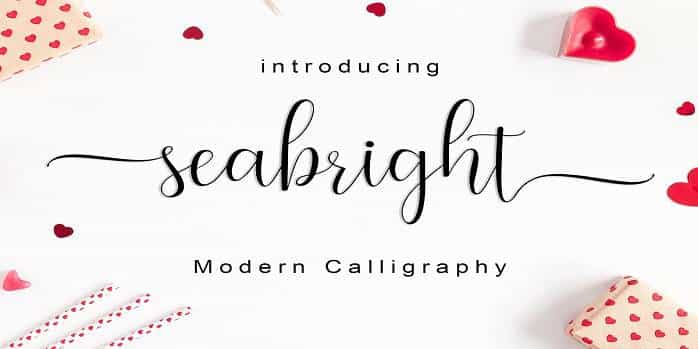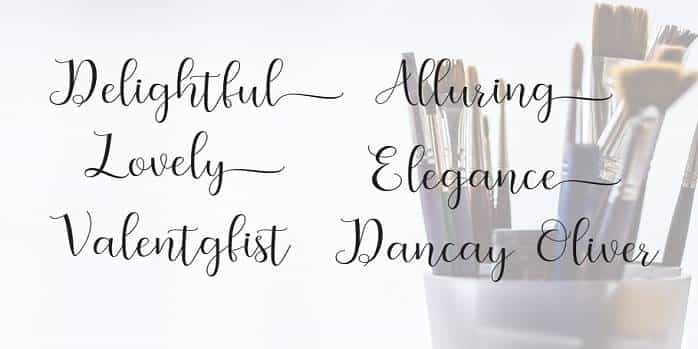
Today i will unveil a new font introduced as “Seabright Font” . A handmade and author original calligraphy style font. This typeface can be applied whenever and to any design. Seabright design and shared by takiyuddin. The Seabright Script has more than 250 glyphs.